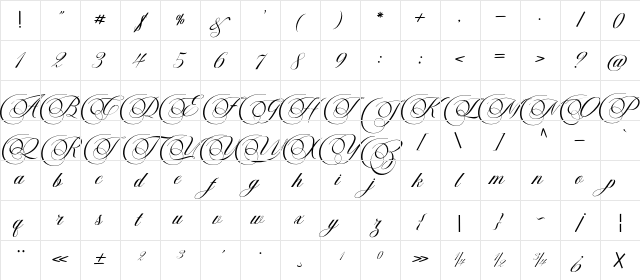
Faradila is a composed and adaptable typeface that performs quietly and consistently across a wide range of design contexts.
Pro Tip: Use Faradila in both headline and body roles to test its range before committing to a single application.